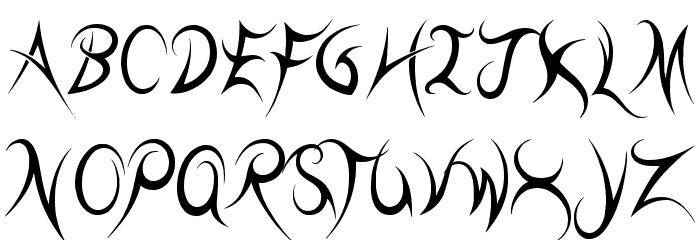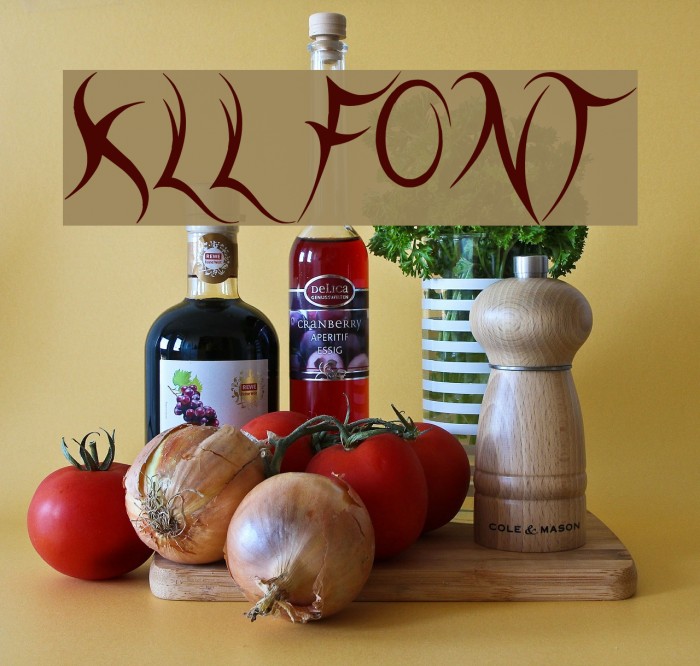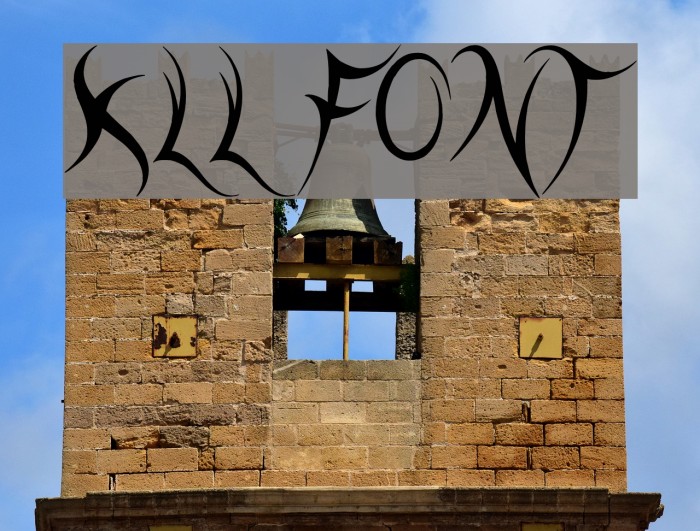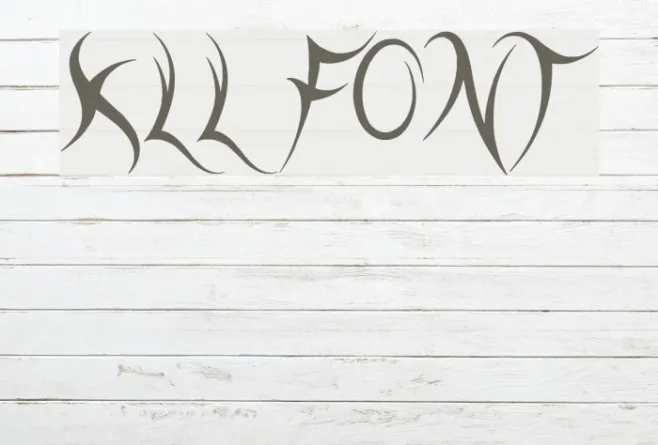
kll Font
This font features a highly decorative and artistic style, characterized by sharp, angular strokes and dramatic curves that create a sense of movement and flair. The uppercase letters are particularly striking, with exaggerated serifs and intricate details that give them a unique, almost tribal appearance. The lowercase letters maintain this theme, offering a cohesive look across the alphabet. Numbers and special characters are designed with the same attention to detail, ensuring consistency throughout. The overall design is bold and eye-catching, making it ideal for projects that require a strong visual impact.
A decorative font with sharp, angular strokes and dramatic curves.
- Proposed Projects: Ideal for tattoo designs, album covers, posters, and branding that requires a bold, artistic touch.